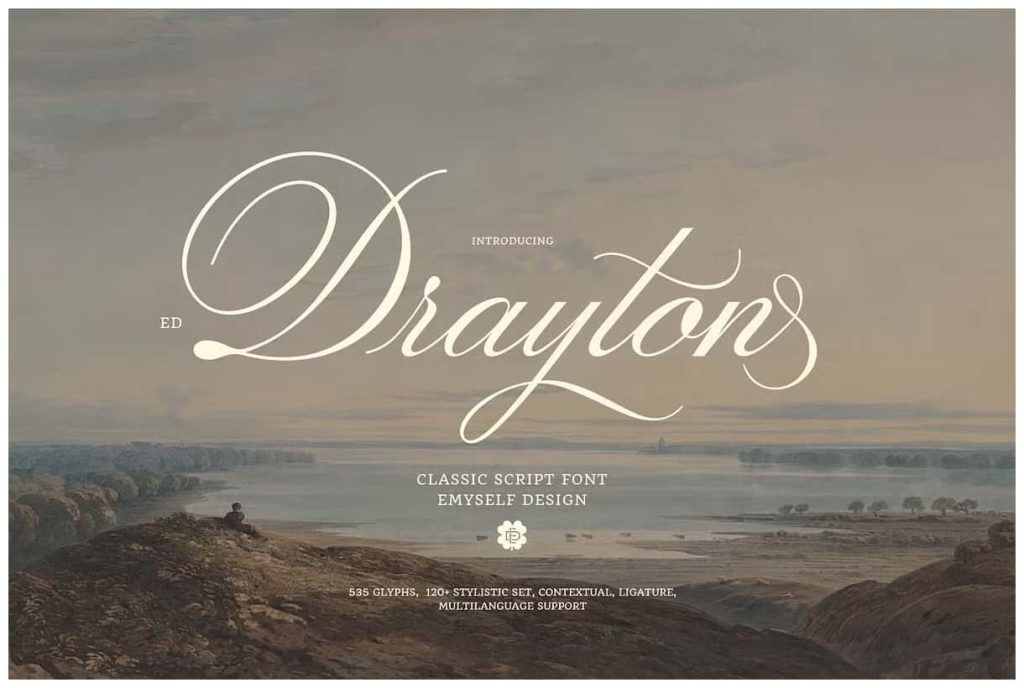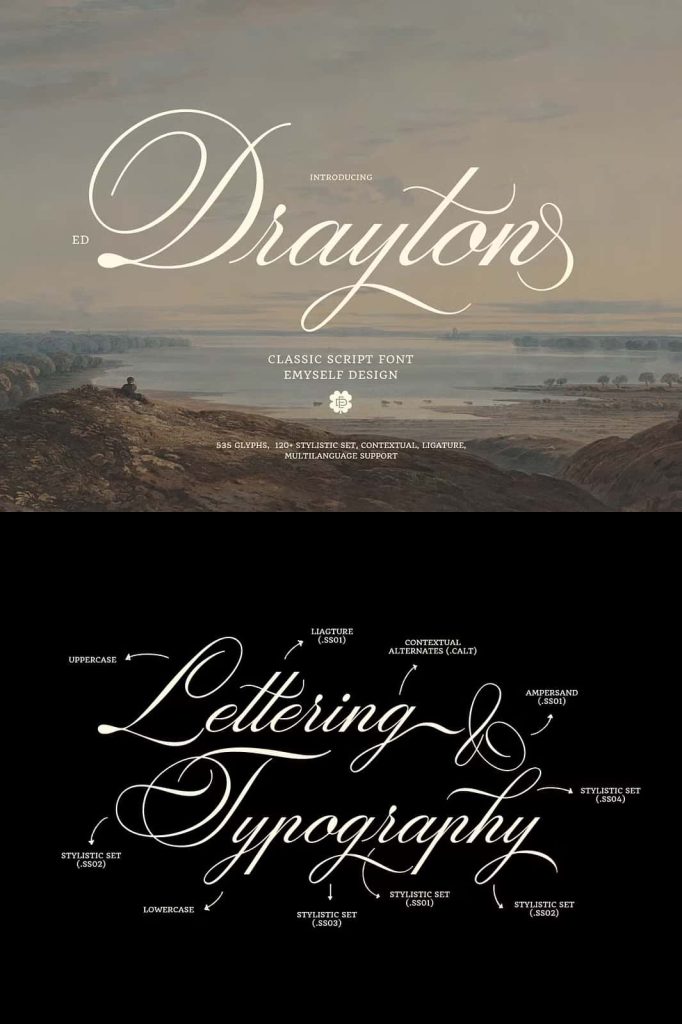
Drayton is a classic script font with an elegant look. This font consists of 535 glyphs and is equipped with 120+ stylistic sets, ligatures, contextuals